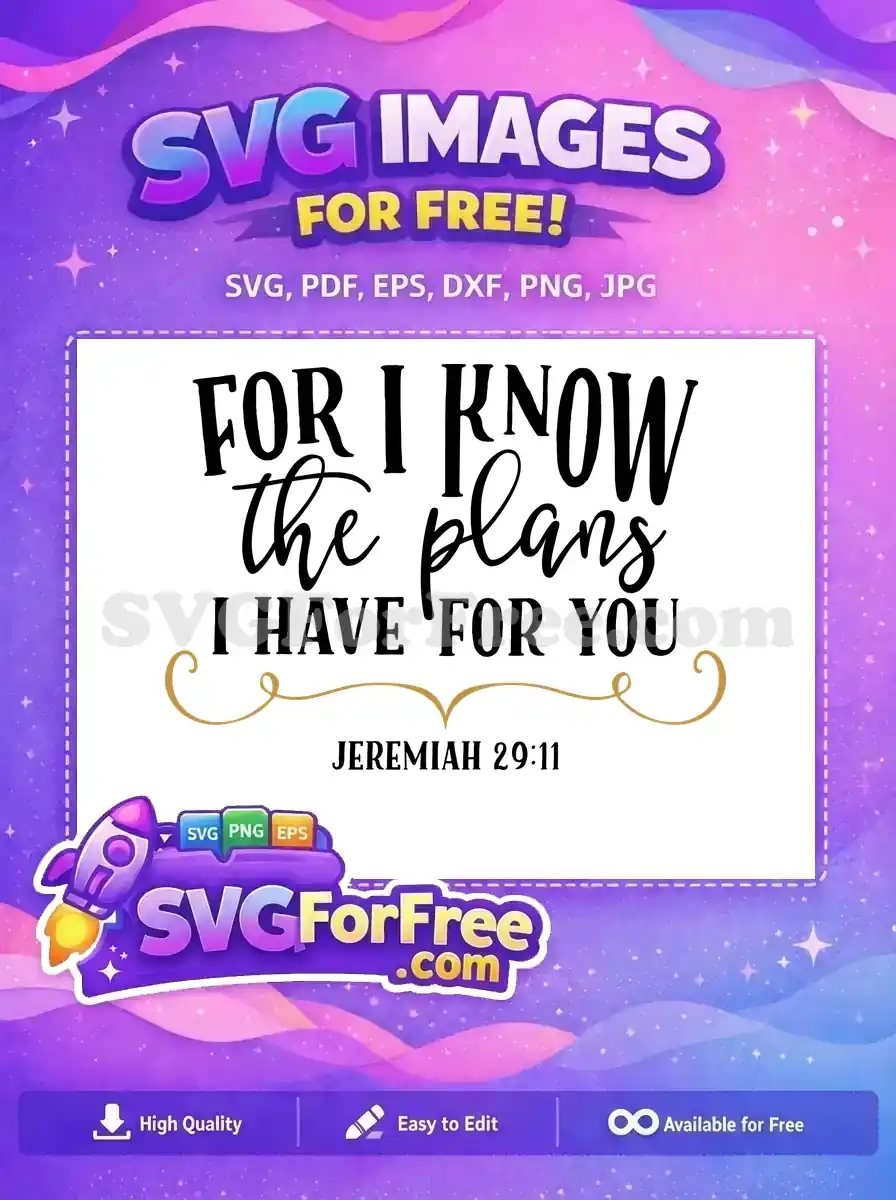
Free Black Calligraphy Font Free Gold Swirl Decoration Bible Quote Free SVG – Instant Download
Discover this free inspirational scripture SVG design, perfect for uplifting projects. A beautiful reminder of faith and hope, readily available for your creative needs.
Free Black Calligraphy Font Free Gold Swirl Decoration Bible Quote Free SVG